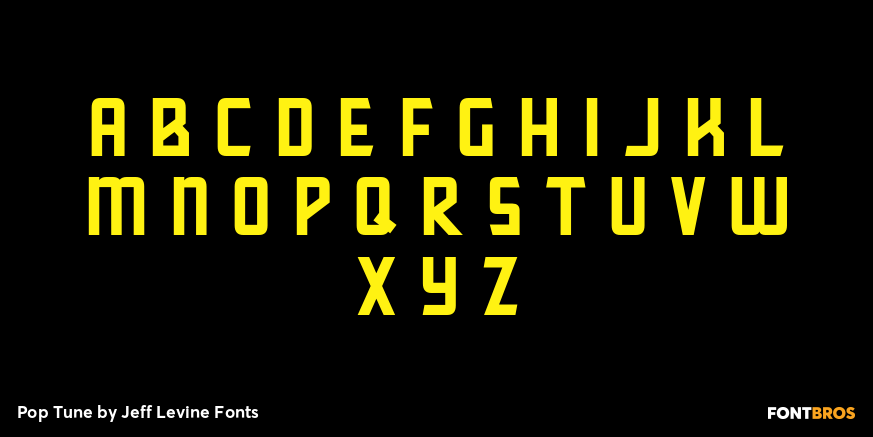
Pop Tune
Pop Tune JNL comes from the hand-lettered title on sheet music for 'Does Your Heart Beat for Me?' This 1940s hit was co-written and made famous by Russ Morgan and His Orchestra.
Many vintage pieces of sheet music employed hand-lettered titles and cartoon illustrations to emphasize the topic of the song itself.